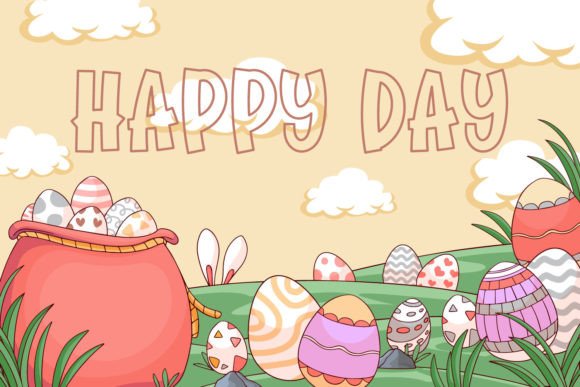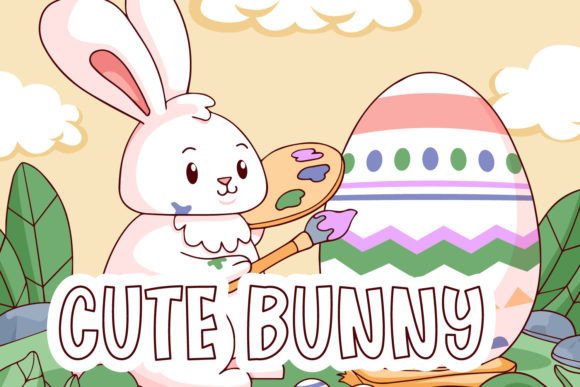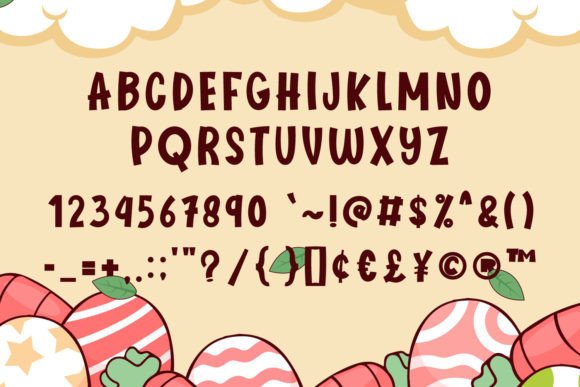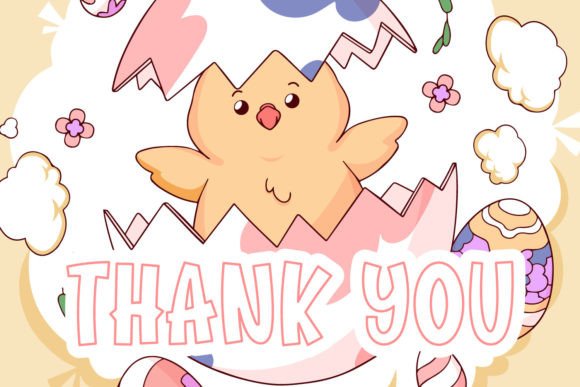
Welcome to Hello Easter Font: The Perfect Addition to Your Easter Designs
Are you looking for a font that captures the essence of Easter and adds a touch of fun to your designs? Look no further than Hello Easter Font! This adorable display font is specifically designed to bring a sense of authenticity and playfulness to your Easter-themed projects. In this article, we’ll dive into the features and benefits of Hello Easter Font, and explore how you can use it to create stunning designs that will delight both kids and adults alike.
What is Hello Easter Font?
Hello Easter Font is a cute and friendly display font that is perfect for Easter-themed designs. Its unique and playful style embodies the spirit of Easter, making it an ideal choice for designers and crafters who want to create fun and engaging projects. Whether you’re designing Easter cards, banners, or social media graphics, Hello Easter Font is sure to add a touch of whimsy and charm to your work.
Key Features of Hello Easter Font
- Cute and Friendly Design: Hello Easter Font features a playful and endearing design that is sure to capture the hearts of your audience.
- Perfect for Children-Themed Designs: This font is specifically designed for Easter-themed designs, making it an excellent choice for projects aimed at kids.
- Authentic and Fun: Hello Easter Font embodies the spirit of Easter, making it perfect for designs that require a touch of authenticity and playfulness.
- Works Well with Bright Colors: This font pairs perfectly with bright and pastel colors, making it ideal for Easter designs that require a pop of color.
How to Use Hello Easter Font in Your Designs
Hello Easter Font is incredibly versatile and can be used in a variety of design projects. Here are some ideas to get you started:
- Easter Cards and Invitations: Use Hello Easter Font to create adorable Easter cards and invitations that will delight your friends and family.
- Easter Banners and Signs: Create eye-catching Easter banners and signs using Hello Easter Font and bright colors.
- Social Media Graphics: Use Hello Easter Font to create engaging social media graphics that will help you connect with your audience.
- Crafting Projects: Hello Easter Font is perfect for crafting projects, such as Easter-themed DIY decorations and gift tags.
Tips for Getting the Most Out of Hello Easter Font
To get the most out of Hello Easter Font, here are some tips to keep in mind:
- Experiment with Colors: Hello Easter Font works well with bright and pastel colors, so don’t be afraid to experiment and find the perfect color combination for your design.
- Use it with Other Easter-Themed Elements: Combine Hello Easter Font with other Easter-themed elements, such as Easter eggs and bunnies, to create a cohesive and engaging design.
- Keep it Simple: Don’t overcomplicate your design. Keep it simple and let Hello Easter Font be the star of the show.
Hello Easter Font is a delightful and playful font that is perfect for Easter-themed designs. Its cute and friendly design makes it an ideal choice for projects aimed at kids, and its authenticity and fun style ensure that it will add a touch of whimsy to your work. With its versatility and ease of use, Hello Easter Font is a must-have for designers and crafters who want to create stunning Easter designs. So why wait? Download Hello Easter Font today and start creating your own Easter masterpieces!